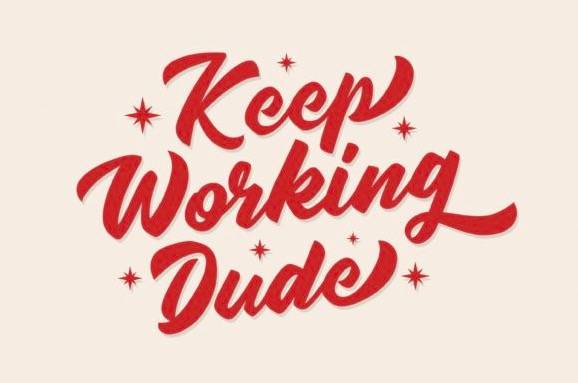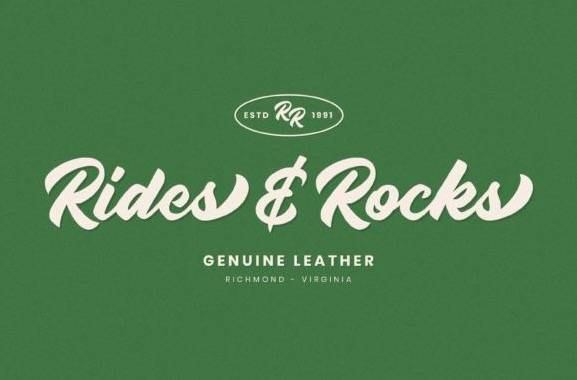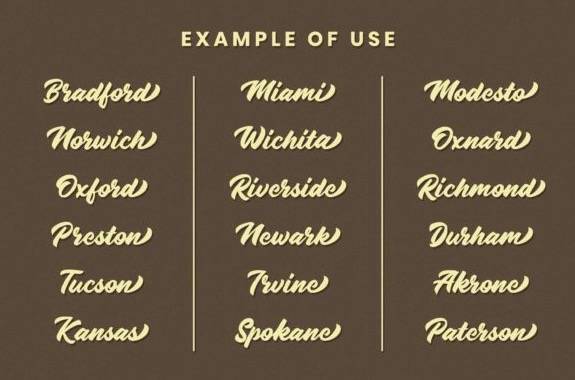
Radens font brings in it a vintage style, Radens Font is a unique, retro, and vintage bold typeface. This script font with cursive and black-letter elements.
Due to the keen features and highly clear format of the Radens Font, the popularity of this font is increasing day by day. And These features make this stylish font family differ from others. The designer for this remarkable font took keenly to care for making all the glyphs and charters looking cool and highly legible. The designers look forward to this fine quality font for use in their regular undertakings.
Radens Vintage Bold Script Font